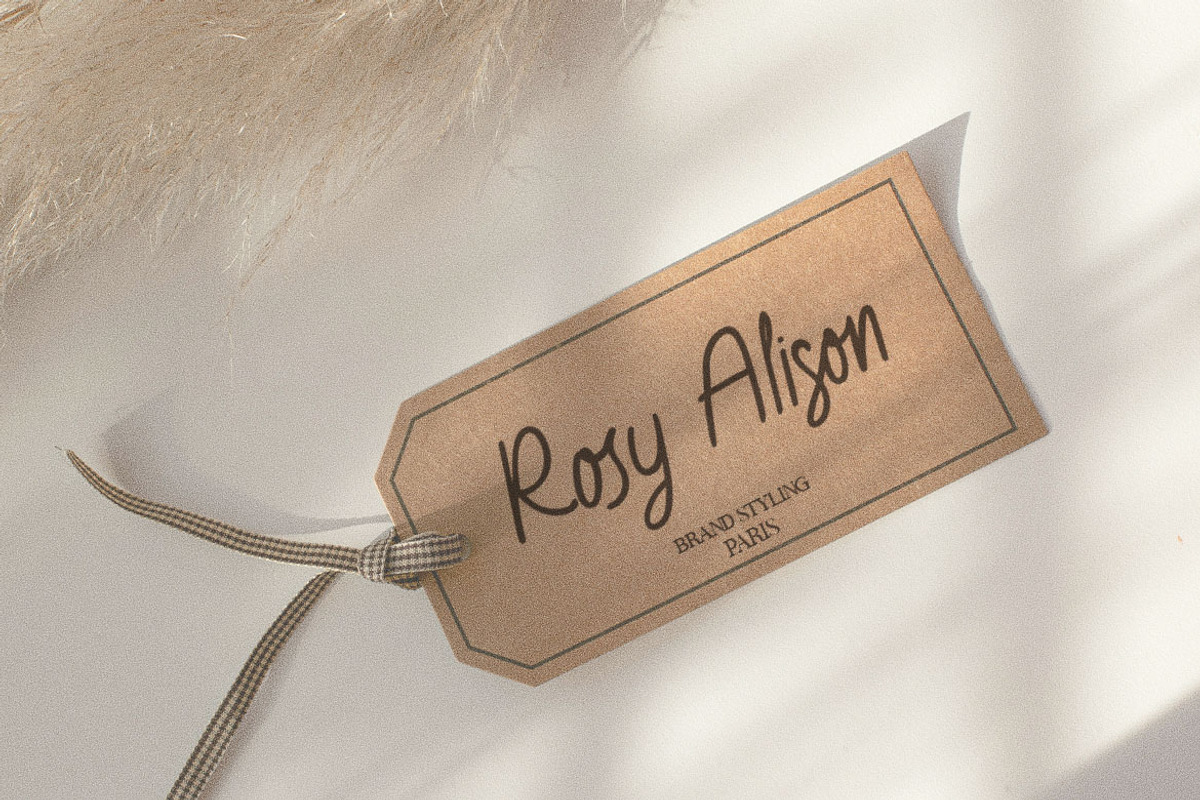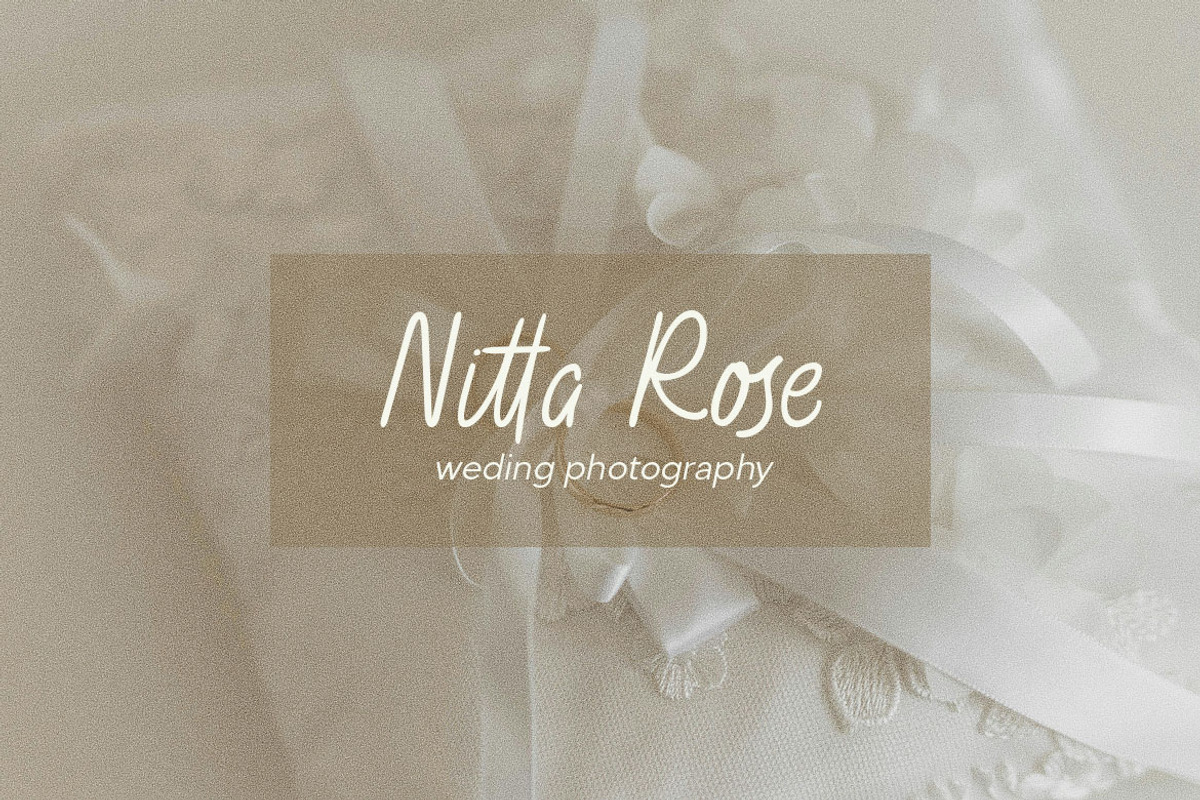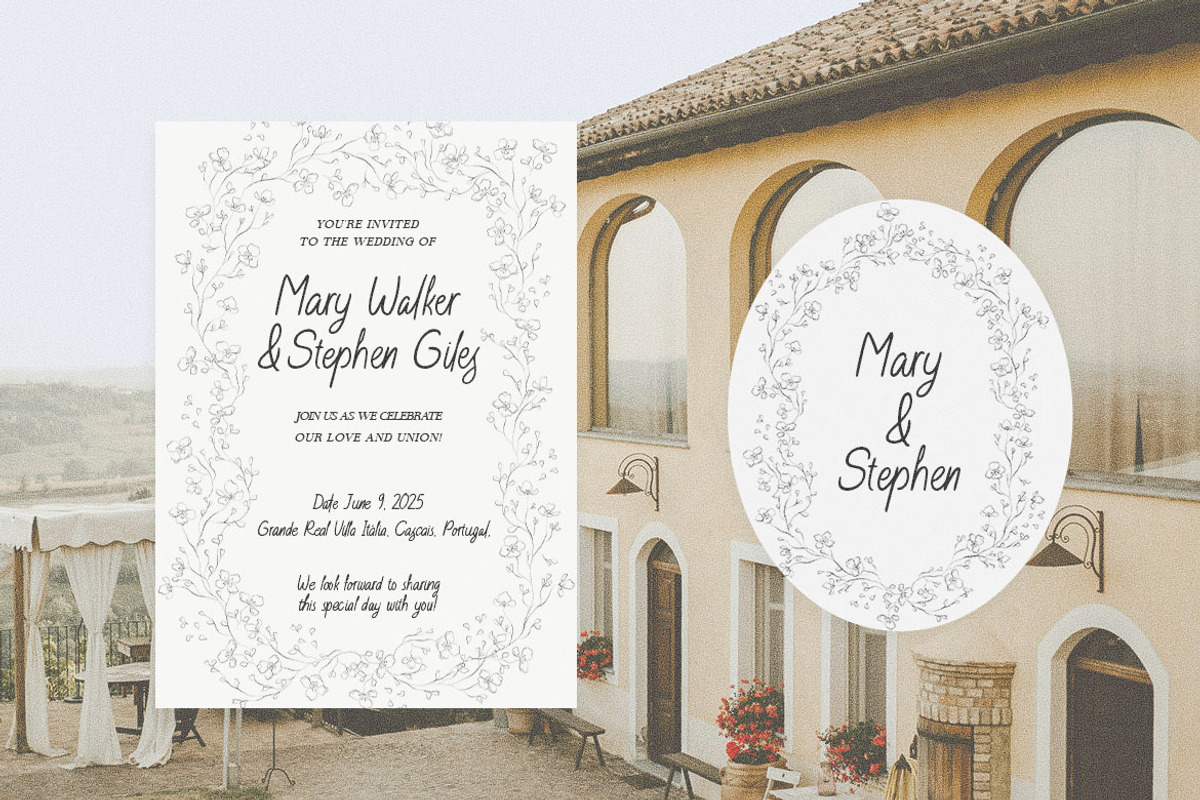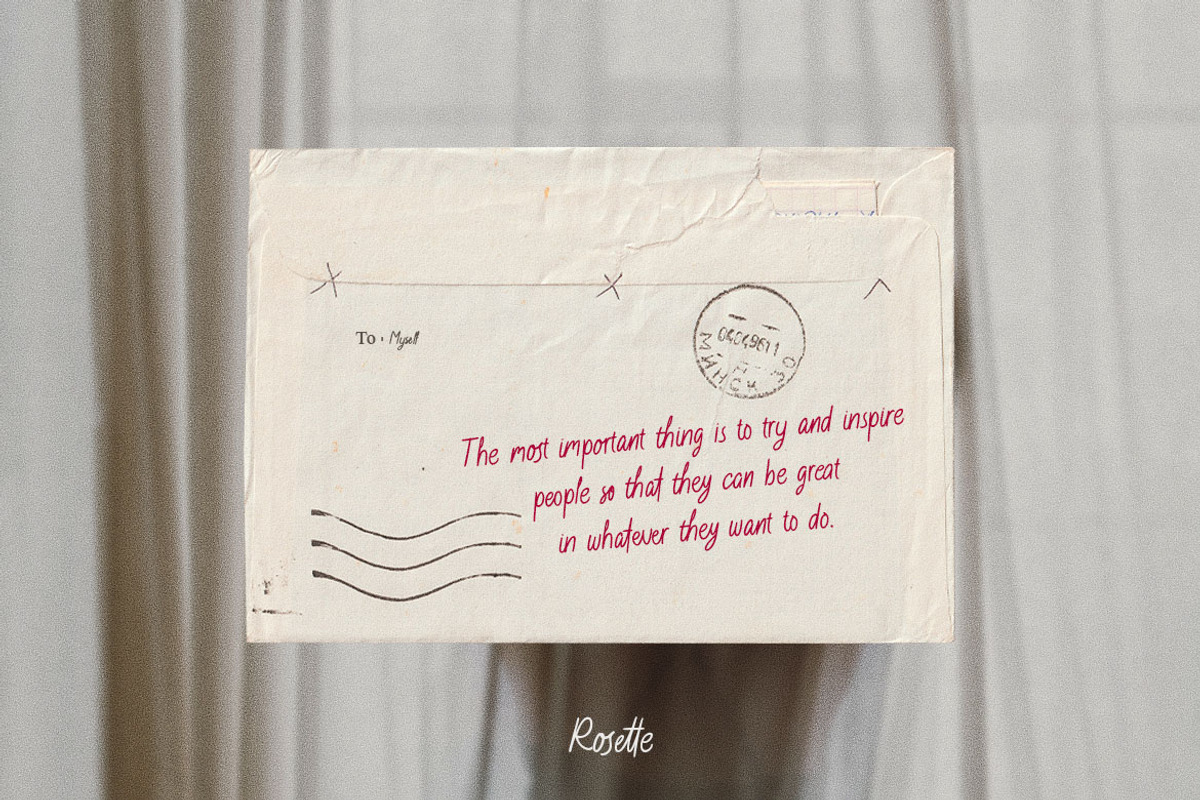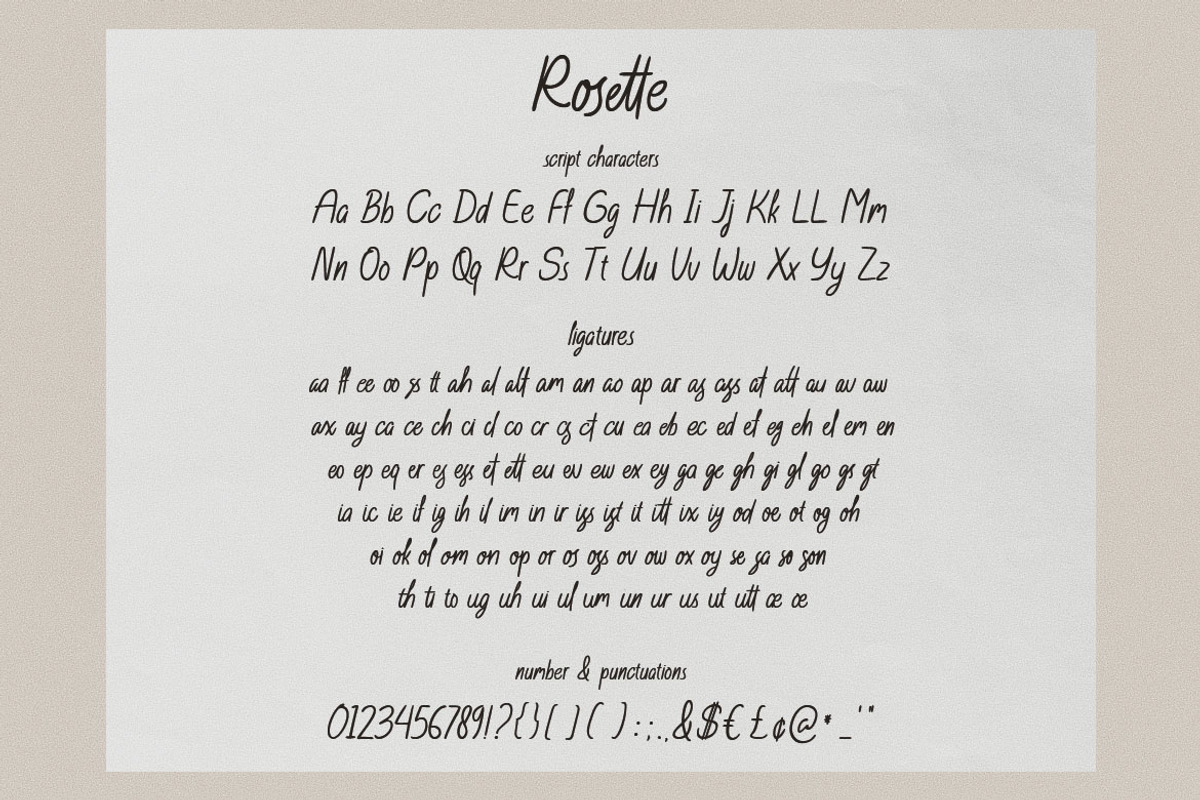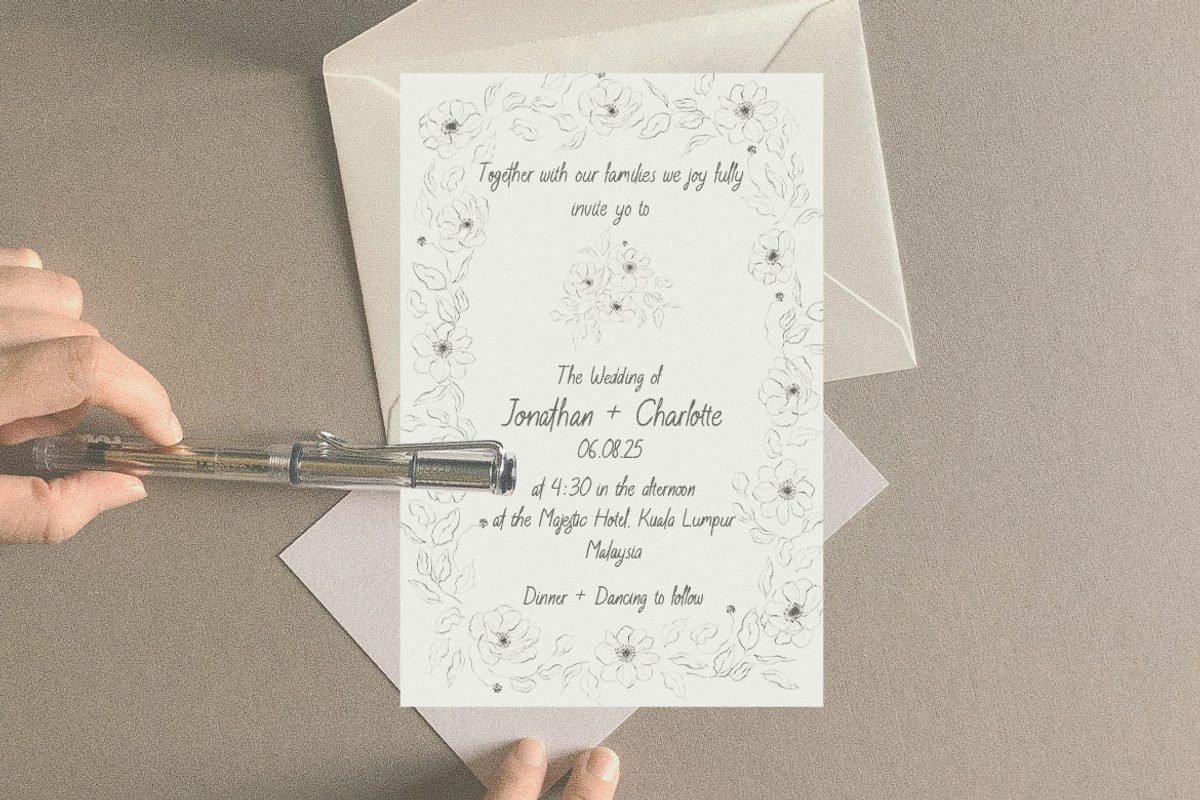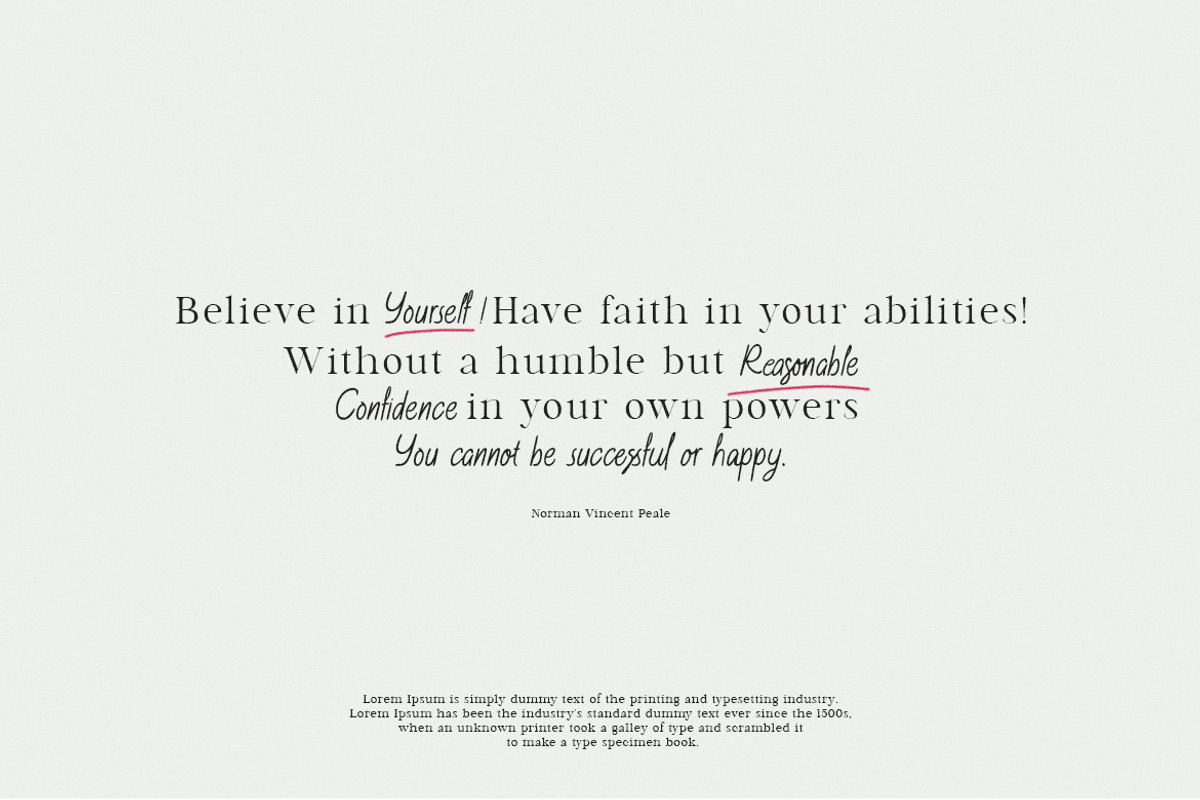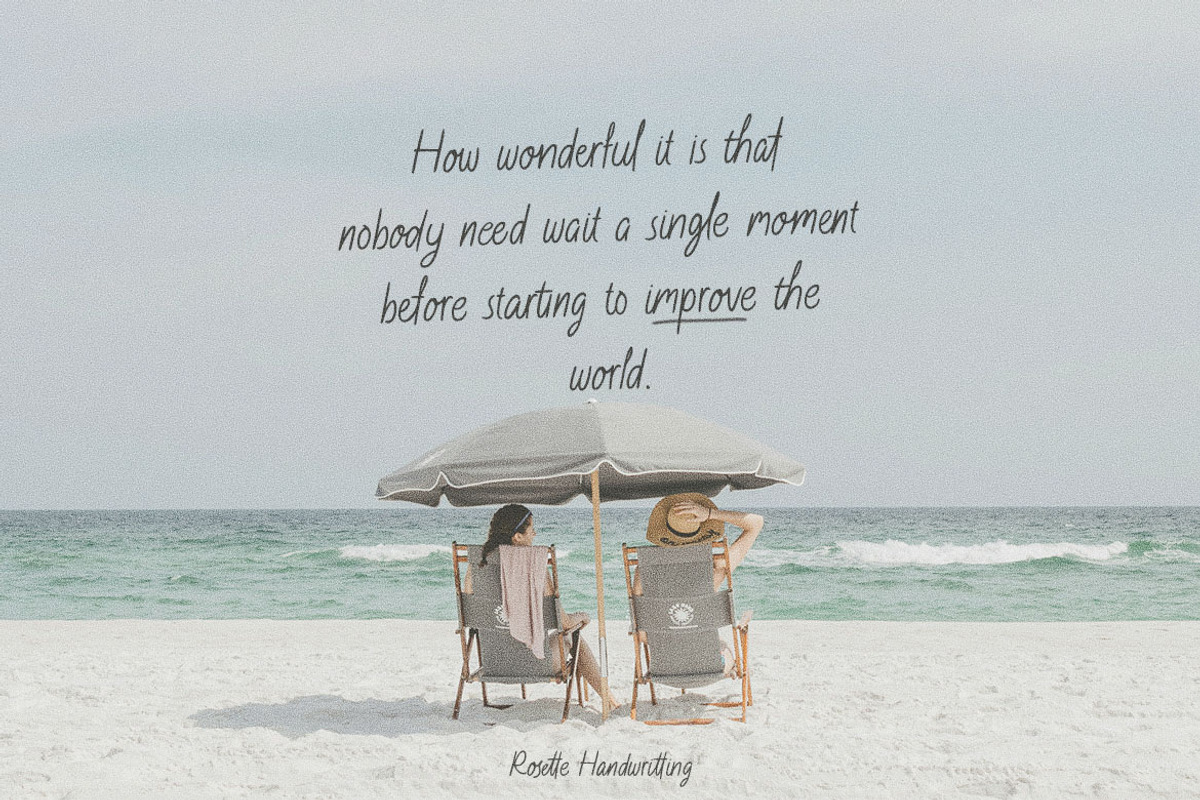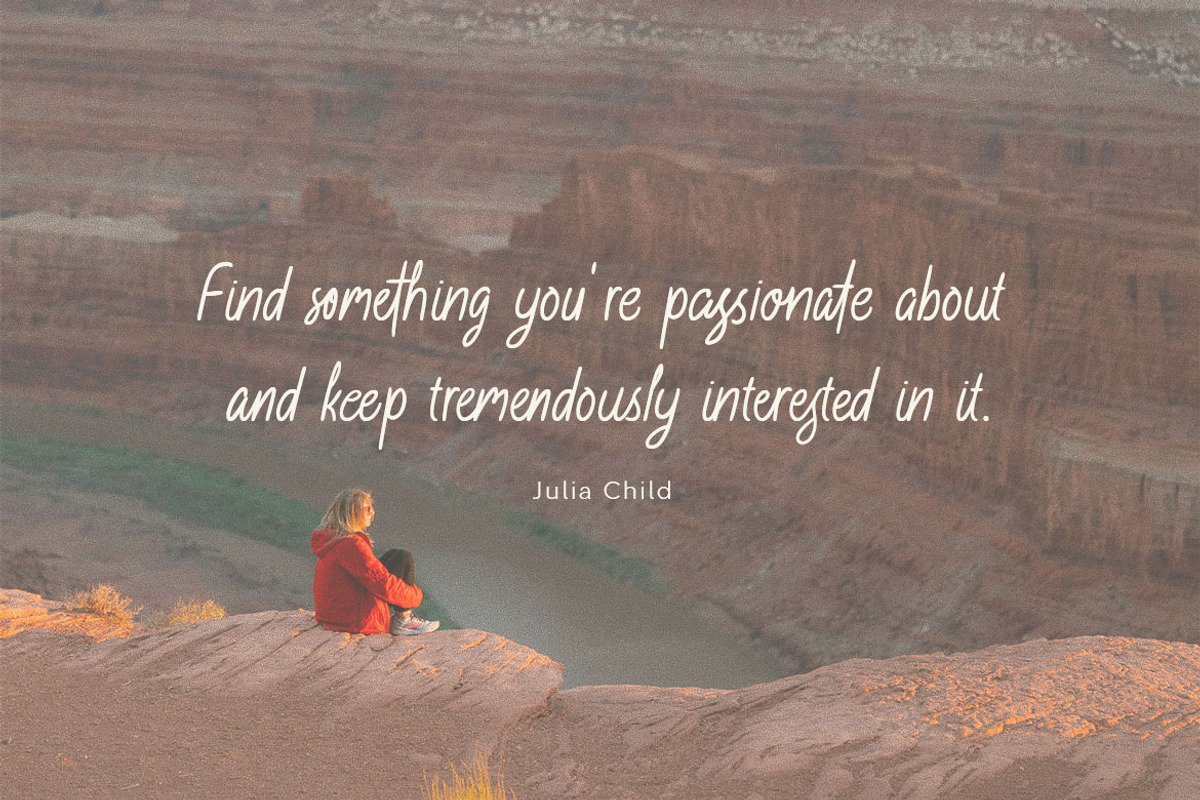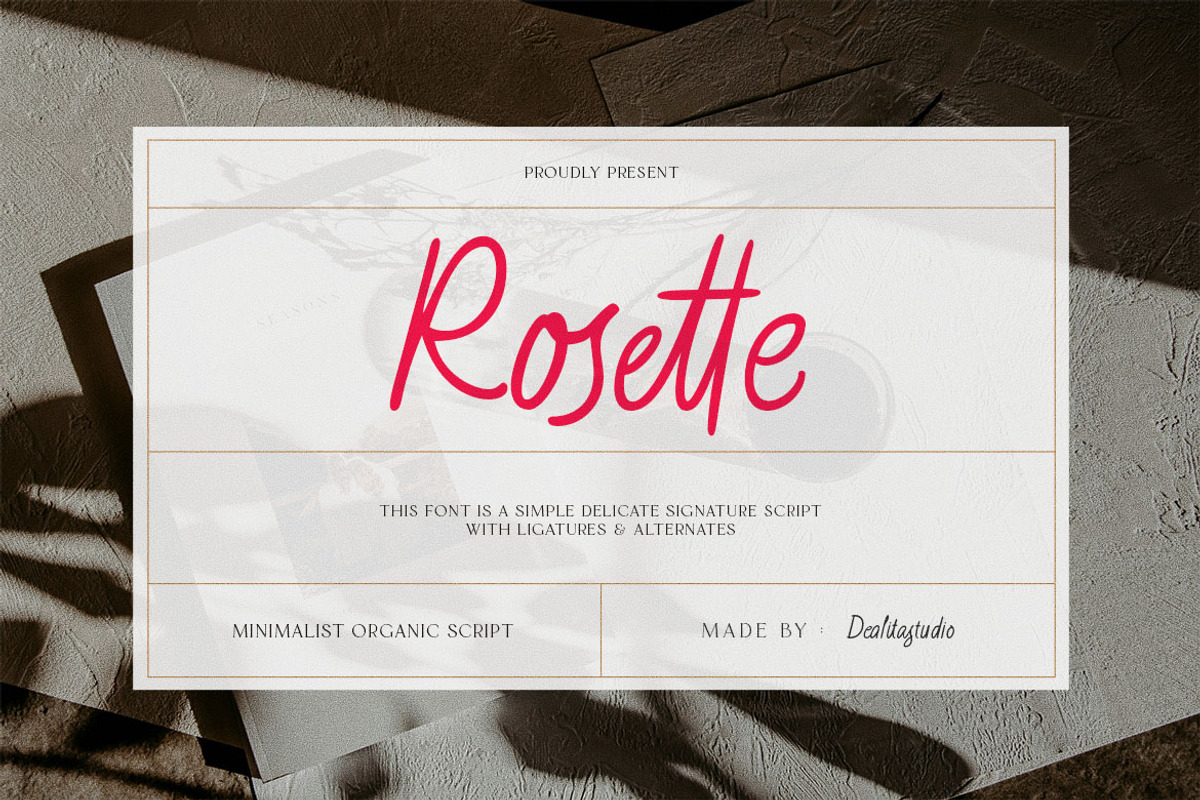
Rosette - Natural Flowing Script
Rosette — Organic Script with 117 Ligatures Rosette is a high-performance organic script engineered with a 117-ligature engine for seamless, authentic penmanship. Designed to mimic the natural rhythm of real handwriting, it delivers an effortlessly human touch to luxury wedding stationery, boutique branding, and soulful editorial design.
- Luxury Wedding & Bridal Stationery
- Beauty & Skincare Boutique Branding
- Social Media Quotes & Heartfelt Content
- Hand-Lettered Packaging & Labels
- 117 Expertly Crafted Ligatures (Fluid Flow)